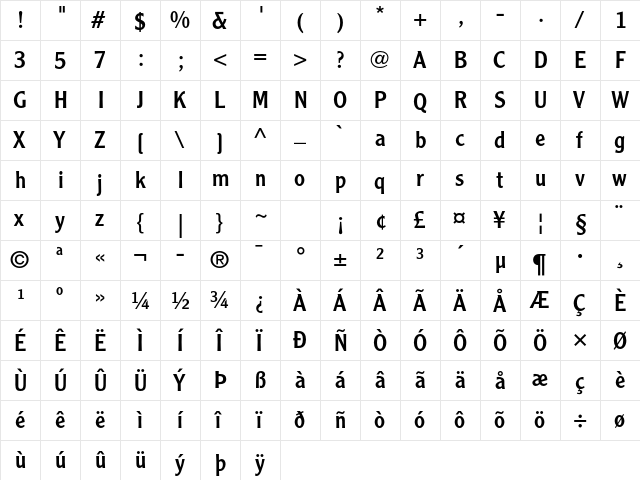
Clearface Gothic LT Std 55 Roman
| Designer | Morris Fuller Benton |
Design Context for Clearface Gothic LT Std Typeface
Clearface Gothic LT Std takes a clean, functional approach — its unadorned letterforms prioritise legibility and work reliably across screen and print environments. Its slender proportions lend an understated elegance to any composition.
Ideal for fashion and beauty branding, minimal editorial layouts, and premium digital experiences.
Font Pairing: Pair Clearface Gothic LT Std with a medium or bold serif for headlines — the weight contrast creates an elegant, high-end feel.
Pro Tip: Avoid using Clearface Gothic LT Std at very small sizes where its slender strokes can disappear. It performs best at medium to large sizes.